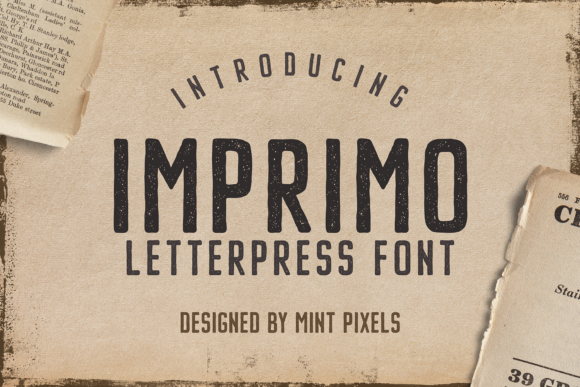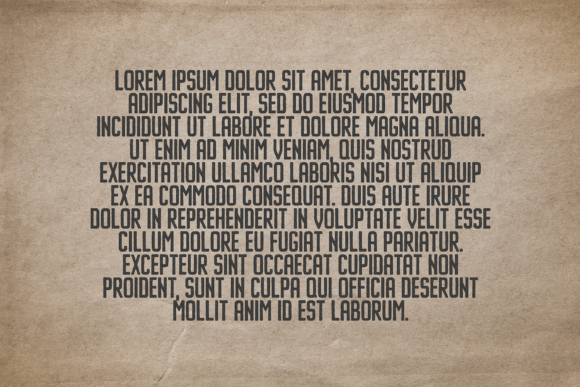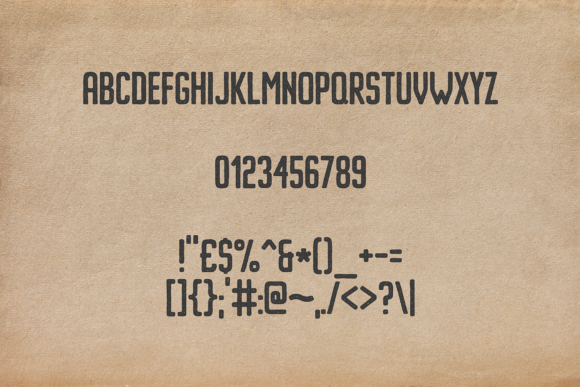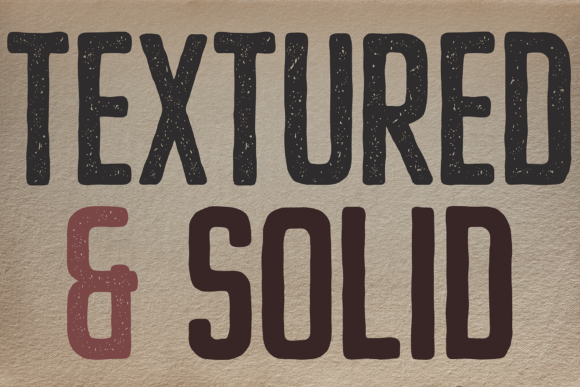
Discovering the Perfect Vintage Vibe
There’s something magical about stumbling upon a design element that perfectly captures the essence of a project. For designers, it’s the thrill of the hunt, searching for that one special piece that elevates their work to the next level. And for those seeking a vintage-inspired look, the Imprimo Letterpress Font is sure to be a game-changer.
This stunning uppercase sans-serif typeface is designed to transport you back in time, evoking the classic look of letterpress printing. With its bold, eye-catching style, Imprimo is perfect for titling, banners, and other bold design ideas that demand attention. Whether you’re working on a branding project, creating a wedding invitation, or designing a website, Imprimo Letterpress Font is a valuable addition to any designer’s toolkit.
Imprimo Letterpress Font Key Features
- Font Family: Imprimo Letterpress, with 6 styles (Regular, Italic, Bold, Bold Italic, Outline, and Shadow)
- Character Set: Supports Latin-based languages, with over 2000 glyphs, including ligatures and ornaments
- Unique Characteristics: Designed to mimic the tactile feel of letterpress printing, with subtle texture and embossing effects
Imprimo Letterpress Font Review
I recently had the chance to work with the Imprimo Letterpress Font, and I must say it’s a unique and charming addition to any design project. ✨ The font’s distressed, vintage feel adds a touch of elegance and sophistication to any text, making it perfect for designs that require a classic or retro vibe.
One of the standout features of Imprimo is its high level of customization. ✨ The font comes with a range of options for adjusting the spacing, line height, and even the level of distressing, allowing designers to fine-tune the look to their heart’s content. This level of control is a game-changer for anyone working on a project that requires a specific aesthetic.
- ⚠️ Limited language support: Imprimo only supports a limited range of languages, which may be a concern for designers working on international projects.
- ⚠️ Some users may find the font’s distressed look too “done” or overused, which could detract from the overall design.
Overall, I was impressed with Imprimo’s versatility and the level of control it offers designers. While it may have some limitations, it’s a great addition to any font library and is sure to add a touch of class to any design project. ✨
Imprimo Letterpress Font is perfect for:
- Creating vintage-inspired designs.
- Adding texture and depth to your text.
- Creating invitations, posters, and other promotional materials.
Alternatives to Imprimo Letterpress Font
1. Rockwell Font
The Rockwell font is a slab serif typeface that is often used in industrial and technical contexts. It has a sturdy and robust feel that is reminiscent of metal type. Rockwell is a good alternative to Imprimo Letterpress Font when you need a font that conveys a sense of ruggedness and durability.
Rockwell is similar to Imprimo in that it is also a serif font, but it has a more mechanical feel. While Imprimo has a more elegant and refined look, Rockwell is more industrial and utilitarian.
2. News Gothic Font
The News Gothic font is a sans-serif typeface that was originally designed for newspaper headlines. It has a clean and modern feel that is perfect for titles and headings. News Gothic is a good alternative to Imprimo Letterpress Font when you need a font that is clear and easy to read.